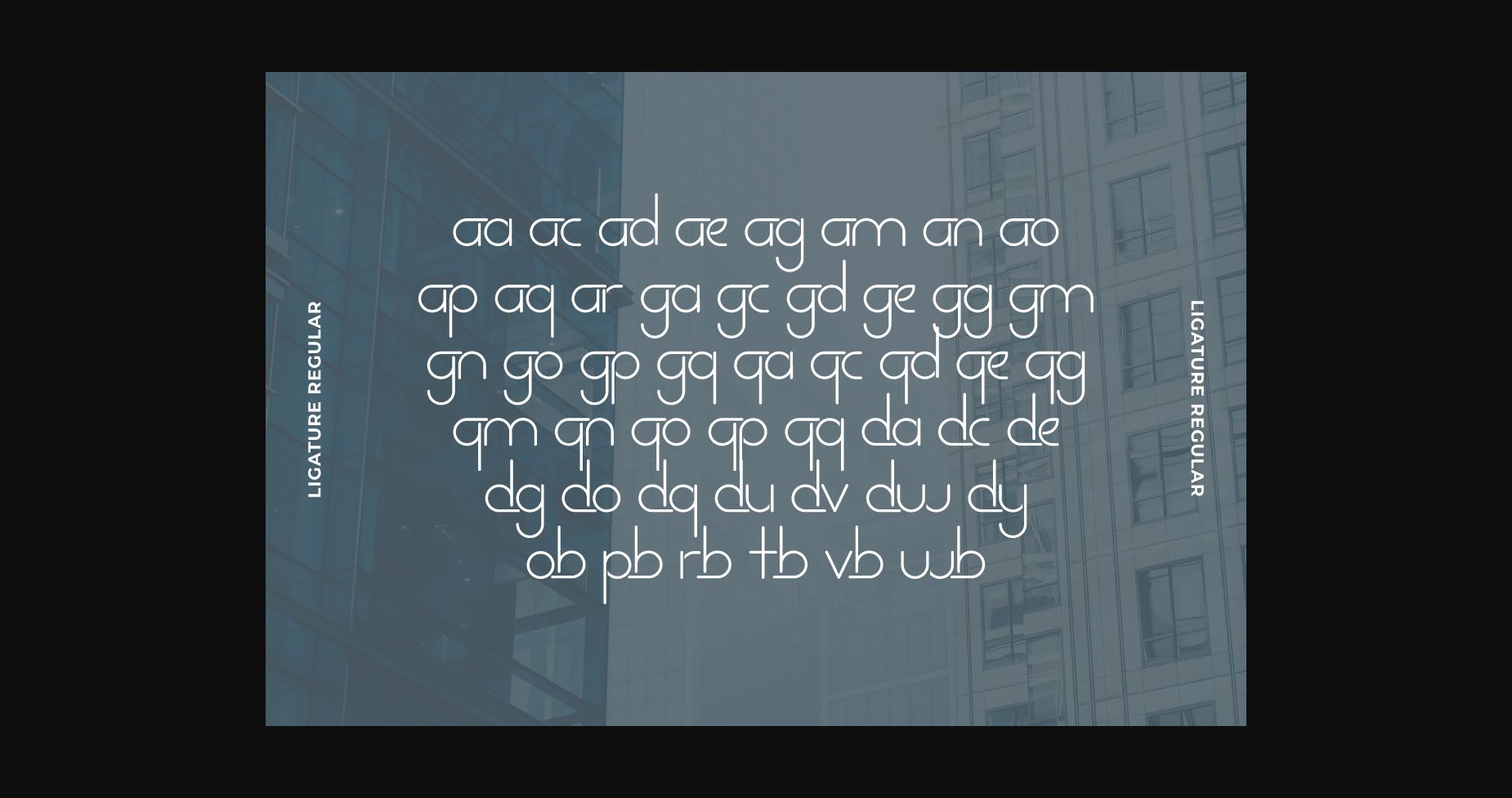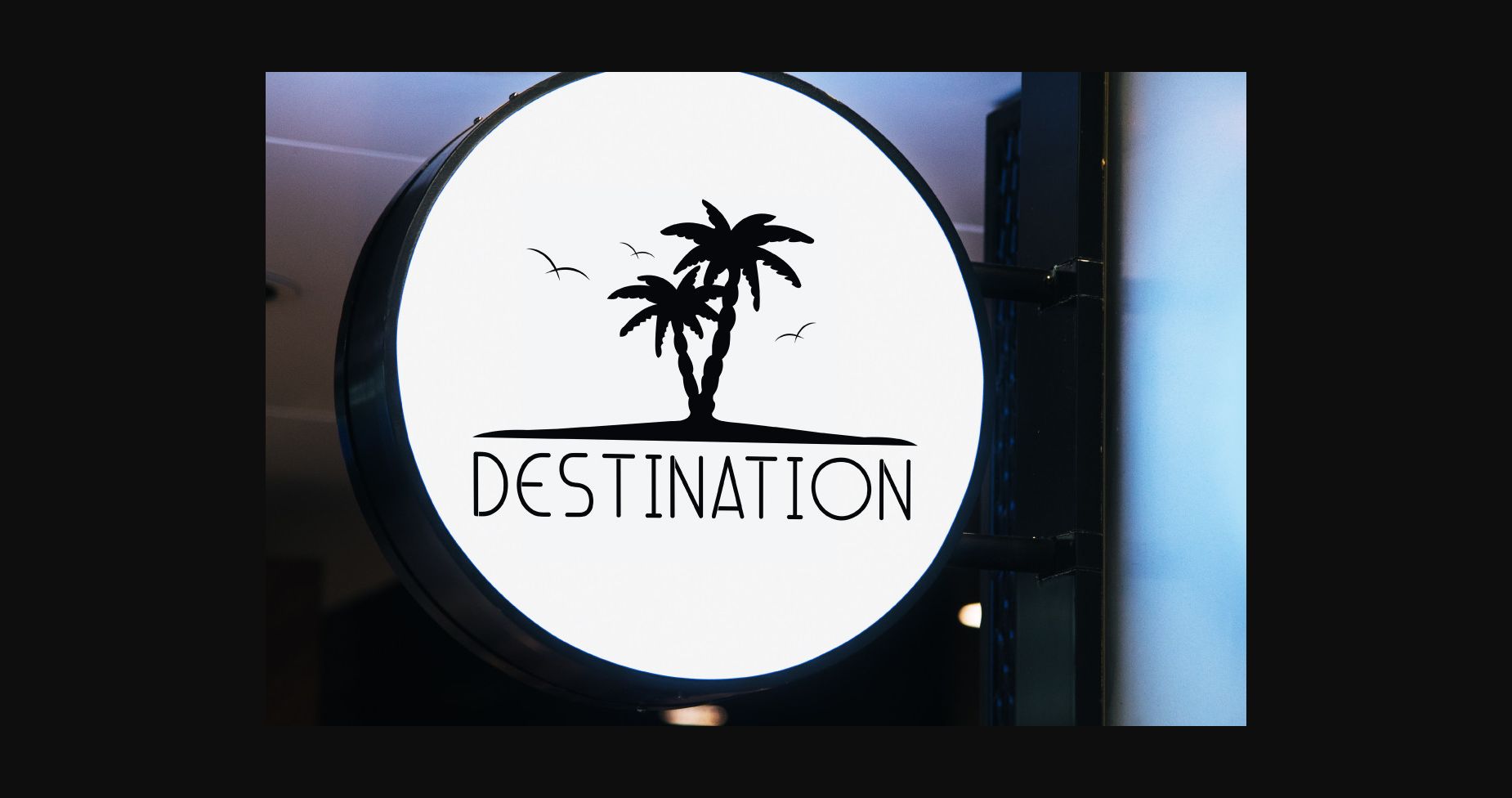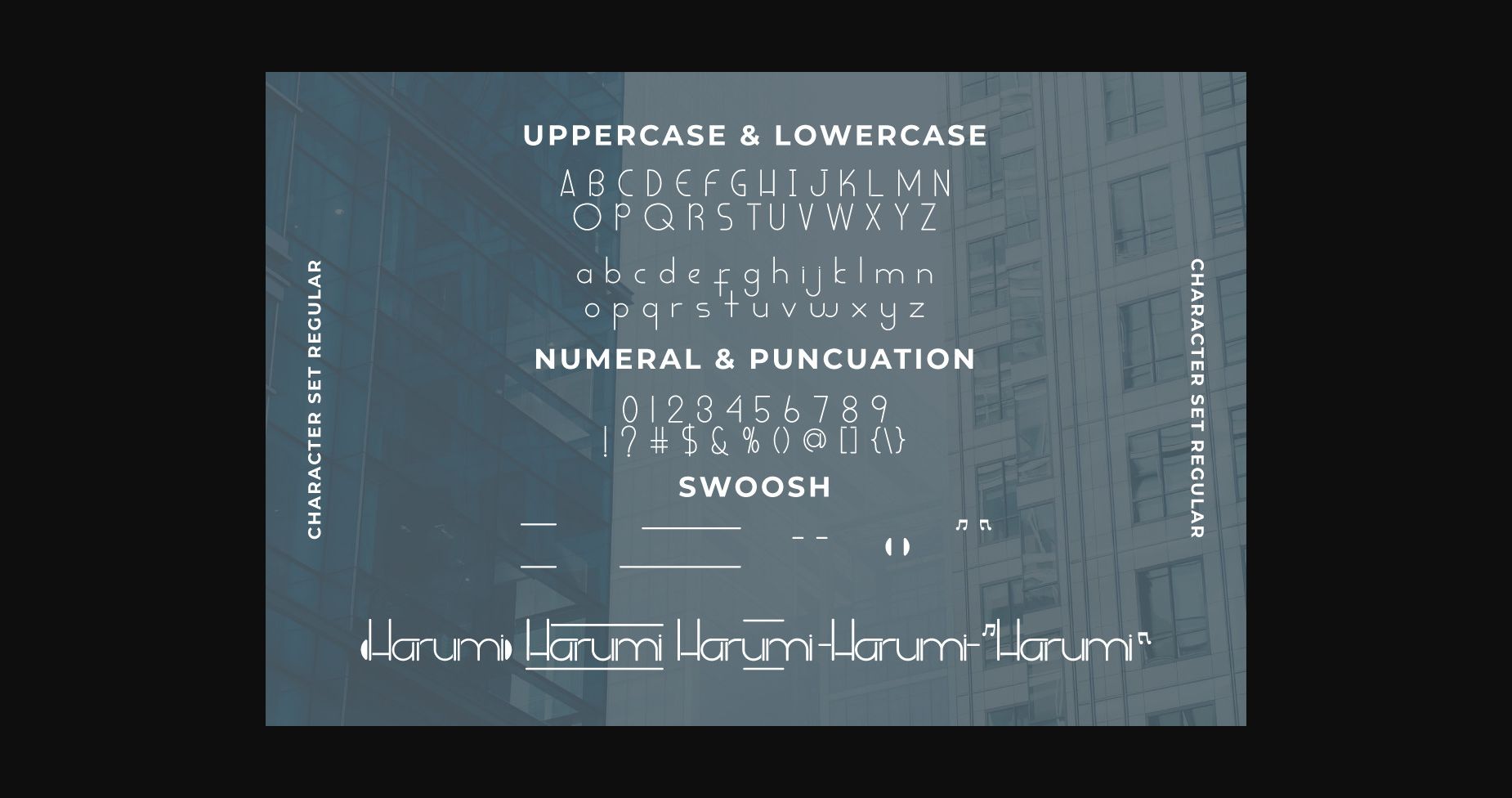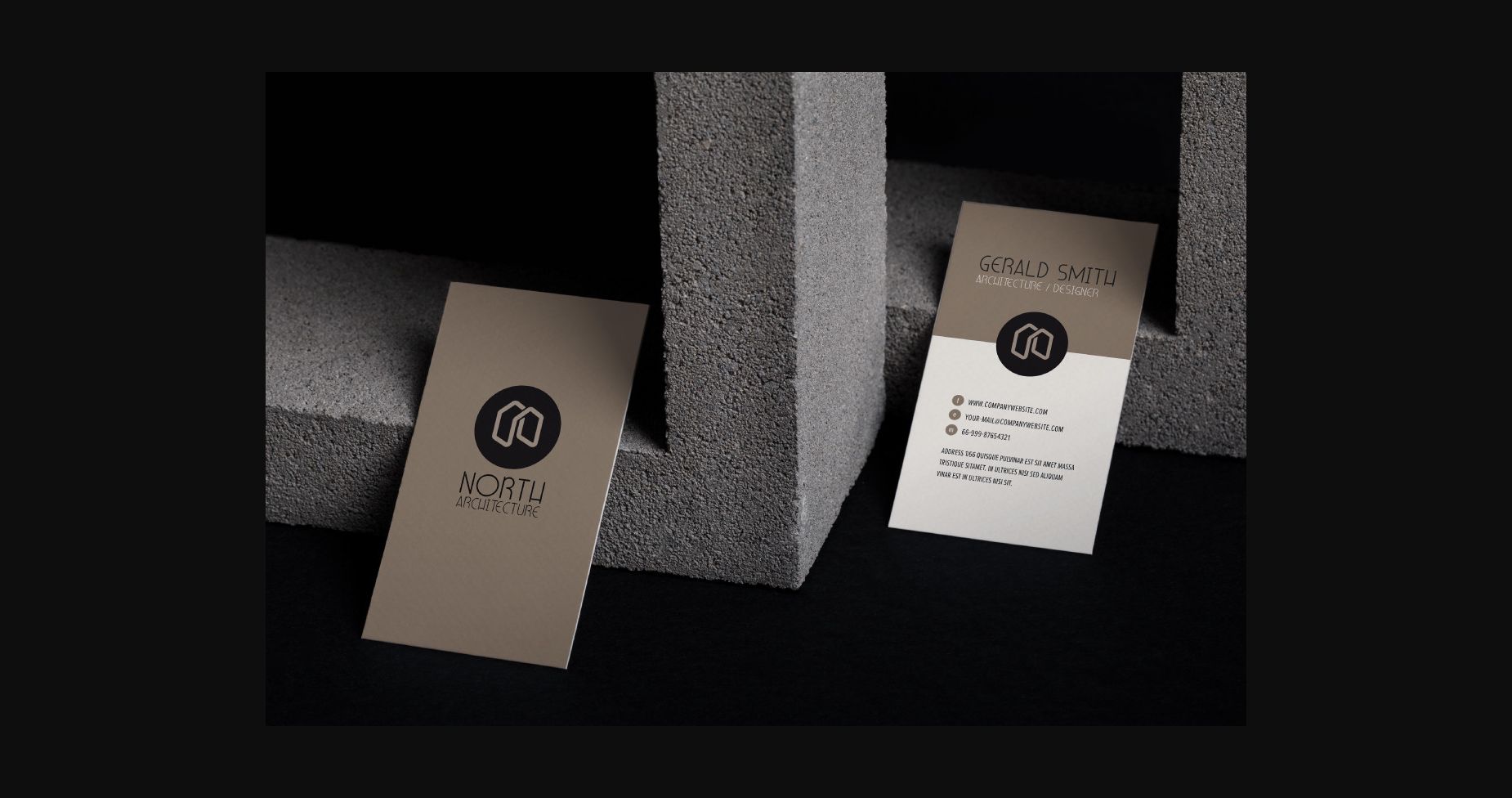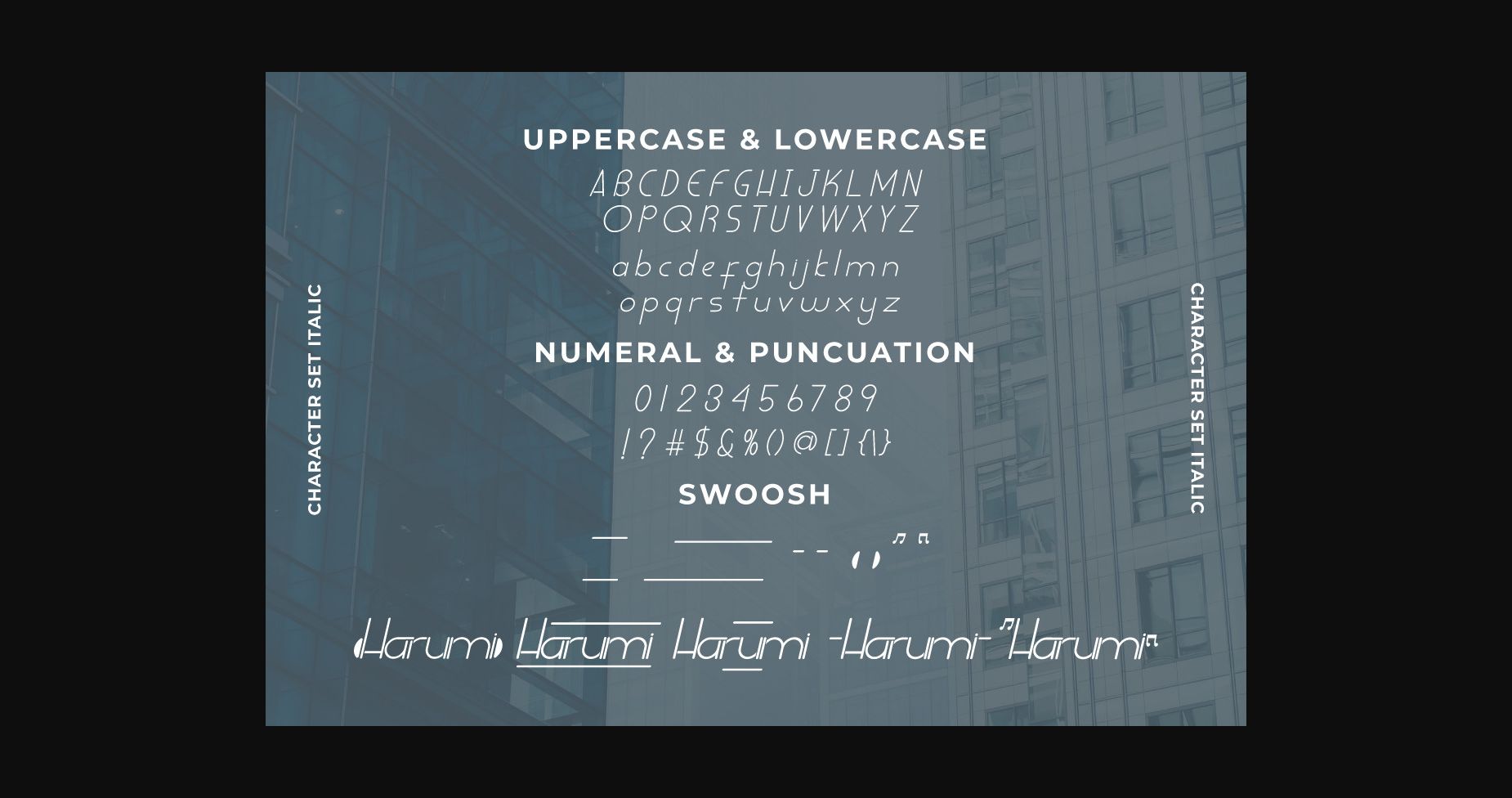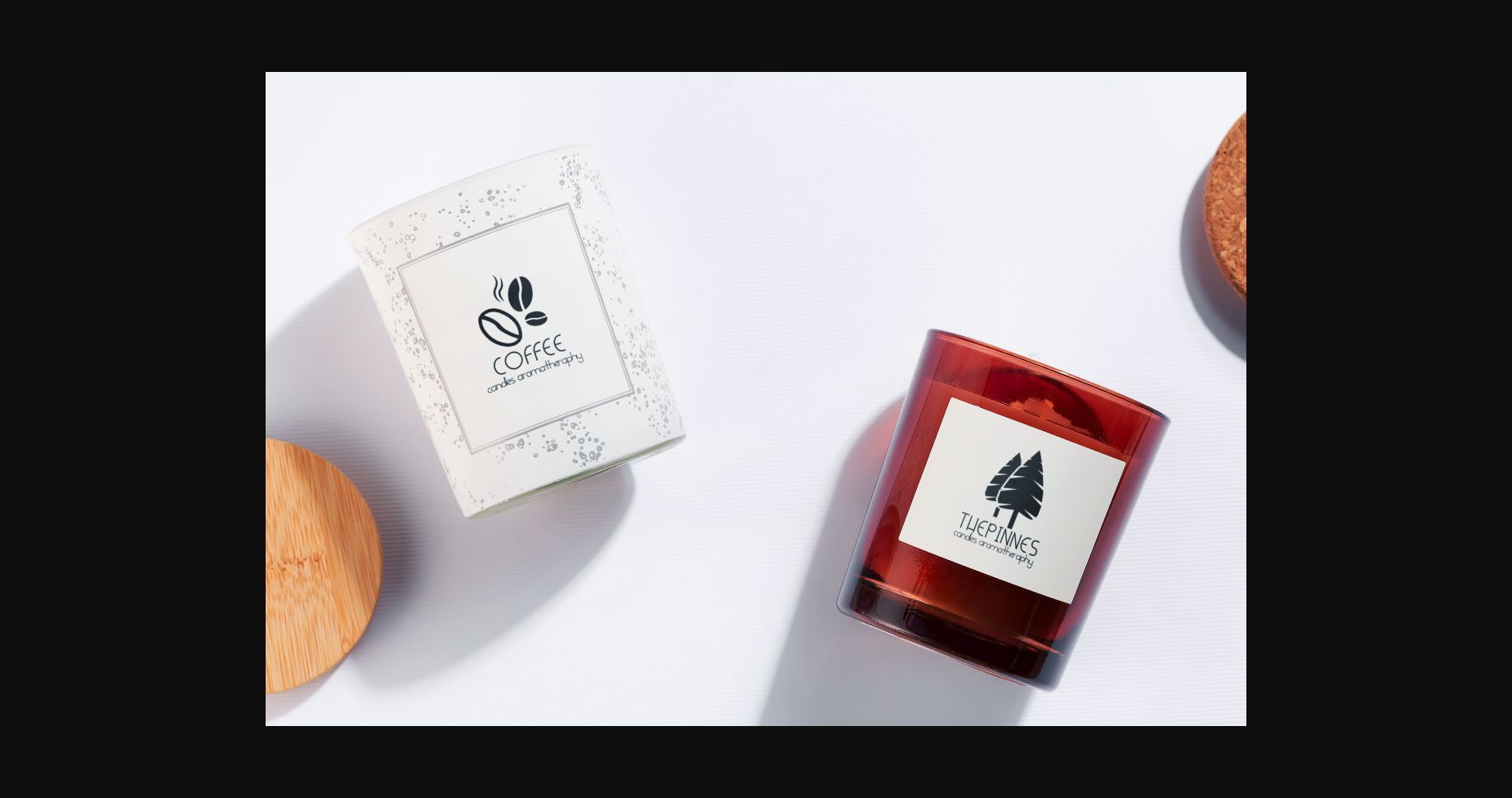
About Harumi Font
Harumi Font is a beautiful sans serif font with unique characters inspired by musicians that will bring a flawless and modern feel to any design. It will add elegance to many creative projects including branding, posters, titles, promotions, games, technology, events, musicians, artists, or any other modern projects that require a sophisticated touch.